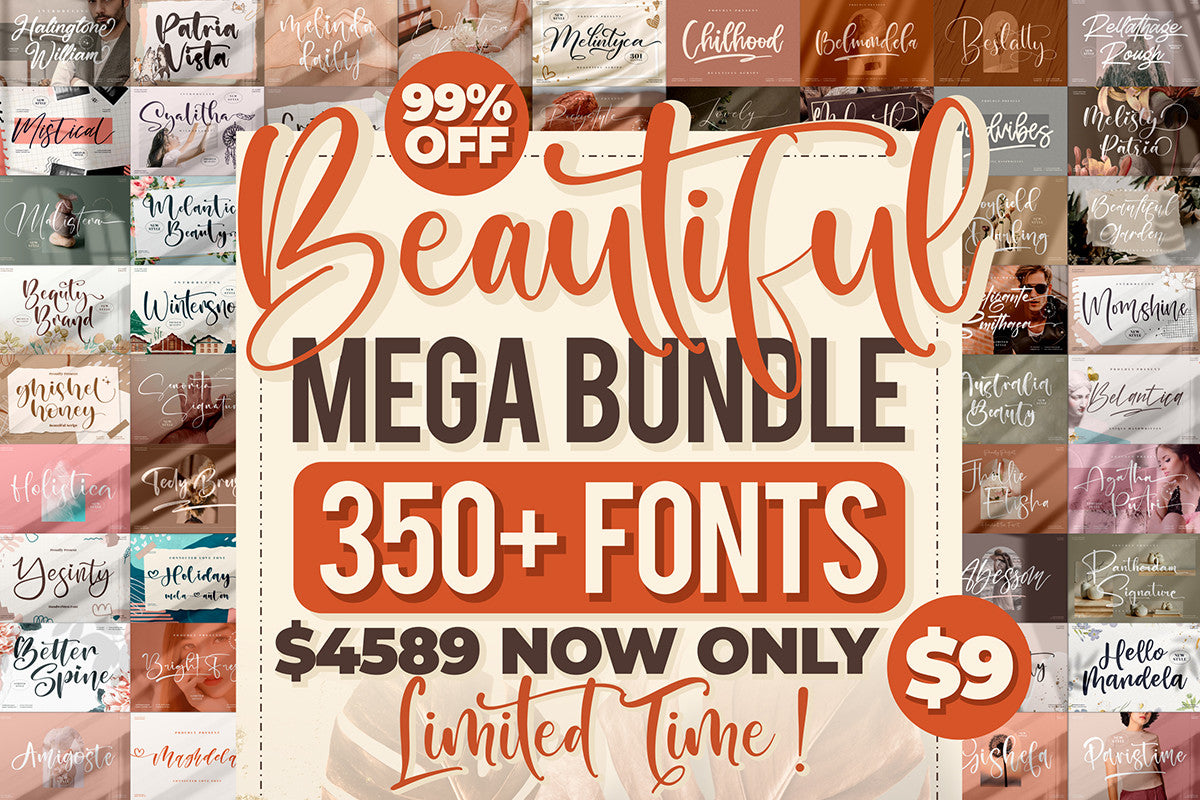
This incredible bundle features 353 stunning fonts, offering a wide range of styles to suit every creative need. Inside, you’ll find elegant calligraphy fonts, signature styles, brush lettering, and natural handwriting typefaces—each designed with artistic detail and versatility in mind. Every font includes hundreds of glyphs, alternates, ligatures, and swashes, along with full international language support, giving you endless customization options.
Perfect for both personal and professional use, these fonts are a go-to resource for designers, crafters, and creatives. Use them to create logos, branding projects, product packaging, posters, quotes, mugs, home décor, and apparel designs. They also shine in more personal creations such as wedding invitations, greeting cards, book covers, photography watermarks, name cards, and special event stationery.
Whether you’re designing for clients or crafting for fun, this collection provides the perfect handwritten touch to elevate any project with beauty, style, and personality.